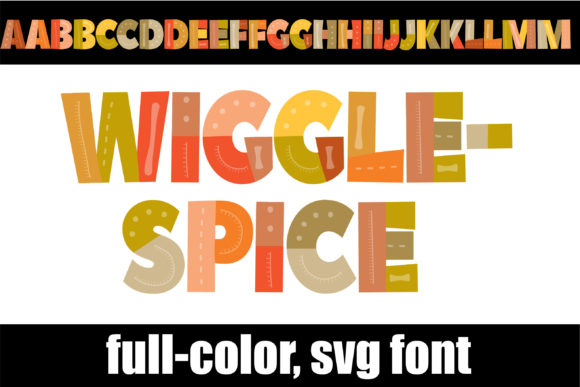
Welcome to the land of creative inspiration, where letters dance in a symphony of colors, bringing your words to life like never before. Meet Wigglespice Font, the ultimate digital painting tool for crafting extraordinary visual stories. Unleash your imagination and transform your designs into vibrant masterpieces with this unique full-color font.
Picture this: a pumpkin carving contest where your design becomes the talk of the town. With Wigglespice Font, your pumpkin will be the star of the show, boasting intricate patterns and bold, eye-catching letters that pop with personality. Let your creativity run wild as you carve out your unique designs, knowing that this font will make them shine.
But Wigglespice Font is not just for pumpkin carving; it's an artistic chameleon, adapting seamlessly to a myriad of creative projects. Whether you're crafting social media graphics, designing one-of-a-kind invitations, or adding a touch of whimsy to your presentations, this font will elevate your designs with its captivating charm.
But be warned, once you start using Wigglespice Font, there's no going back to ordinary black-and-white fonts. Prepare to be mesmerized by the vibrant hues that dance across your screen, transforming your words into works of art.
So, embrace the magic of Wigglespice Font today and embark on a colorful journey of creativity. Let your imagination soar as you explore the endless possibilities of this extraordinary font. It's time to make your designs shine with a kaleidoscope of colors and leave a lasting impression on your audience.